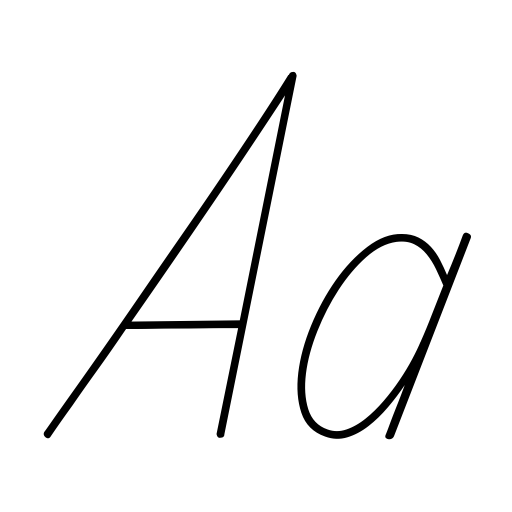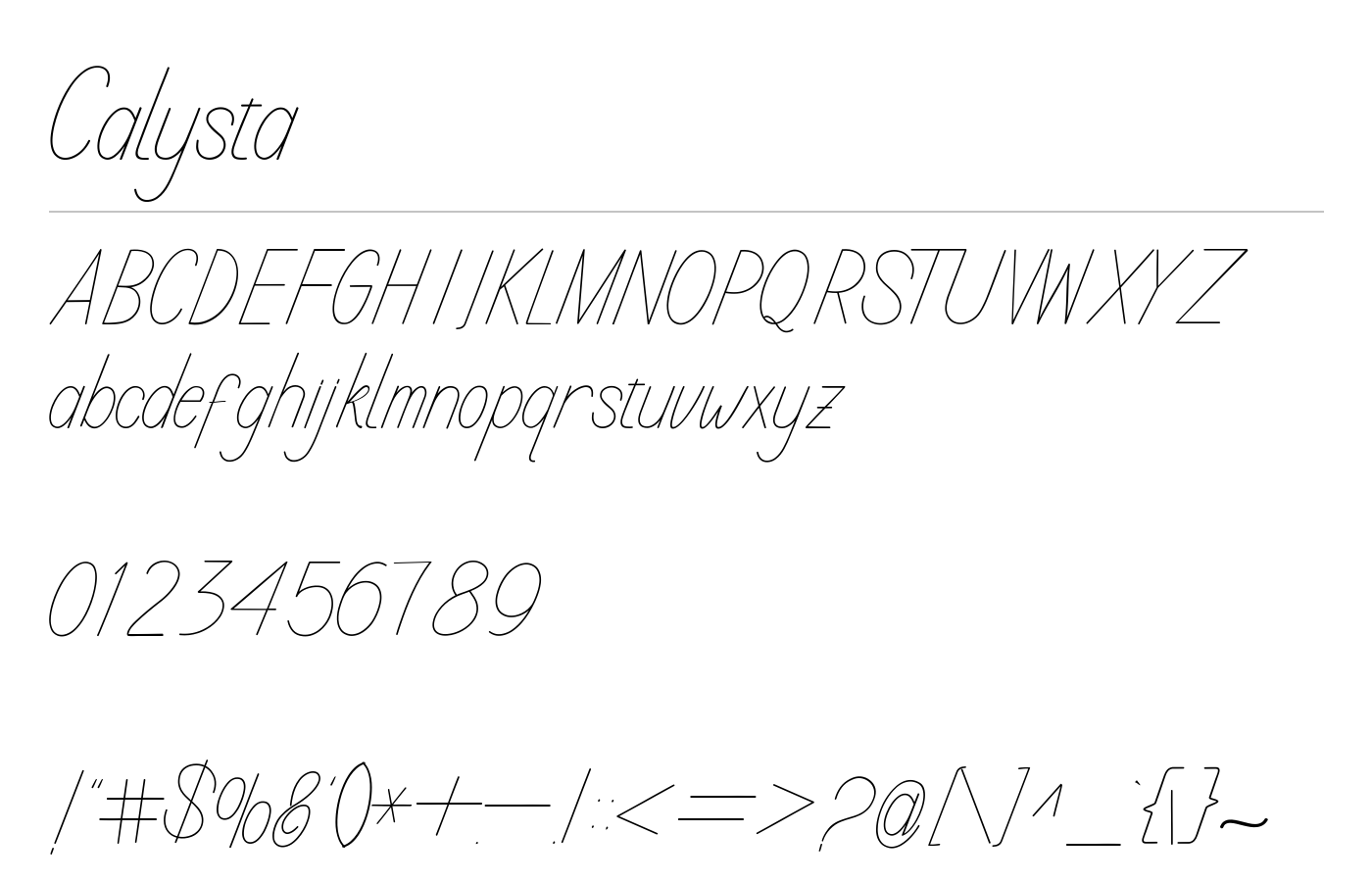
Calysta is a sleek, ultra-lightweight sans serif font with an elegant italic slant that gives it a sophisticated, handwritten feel. Its thin strokes and narrow proportions make it ideal for stylish branding, delicate headlines, and high-end fashion or beauty projects where a refined and modern aesthetic is desired. This font works beautifully for designers seeking a graceful, contemporary look with a touch of personal flair.
Calysta Font
About Calysta Font
| Font family | Calysta Font |